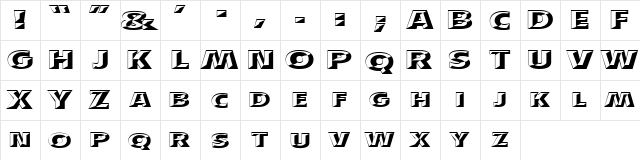
3 Zak DNA Regular
Design Context for 3 Zak DNA Typeface
3 Zak DNA is a composed and adaptable typeface that performs quietly and consistently across a wide range of design contexts.